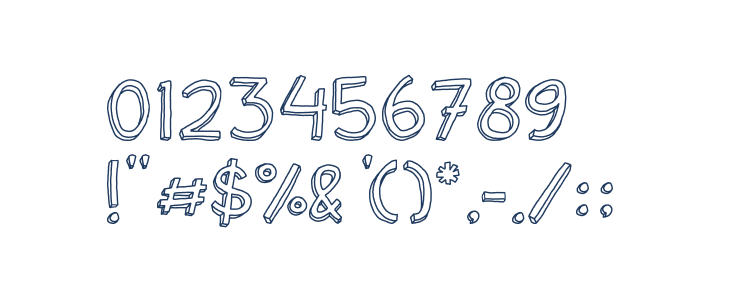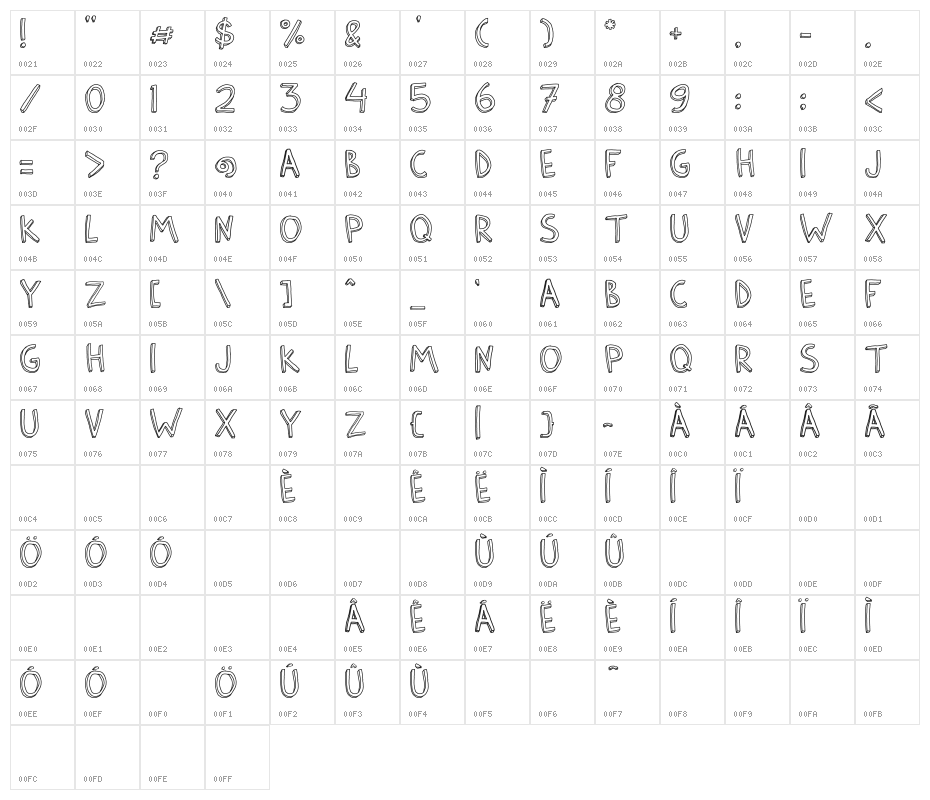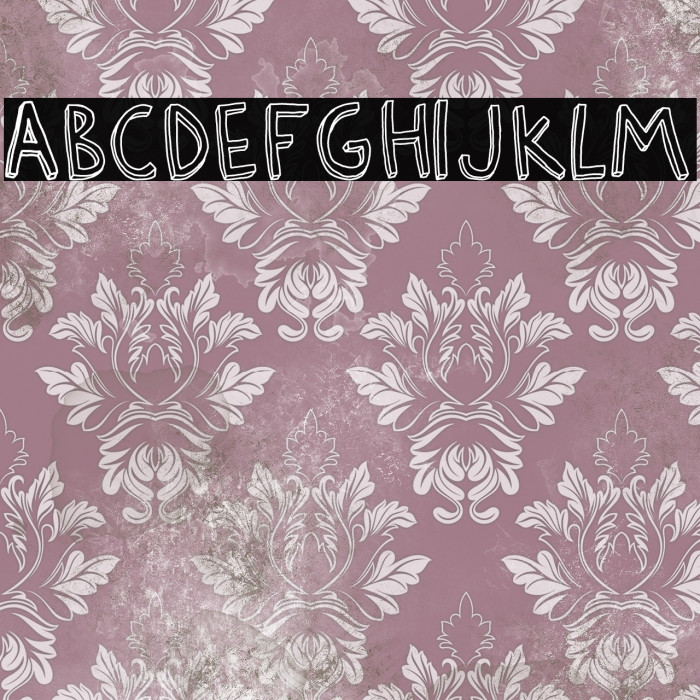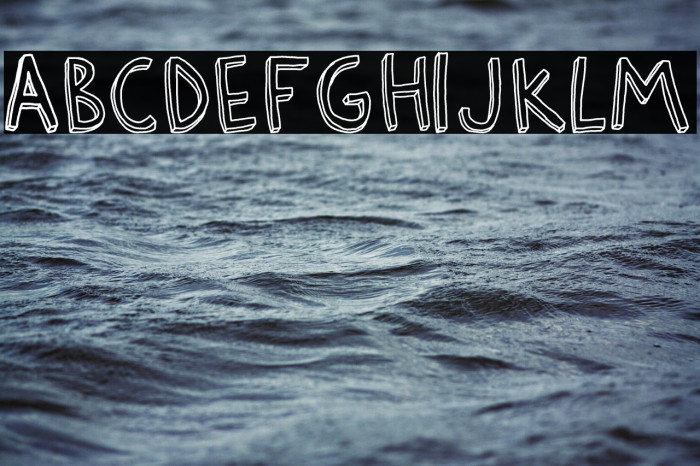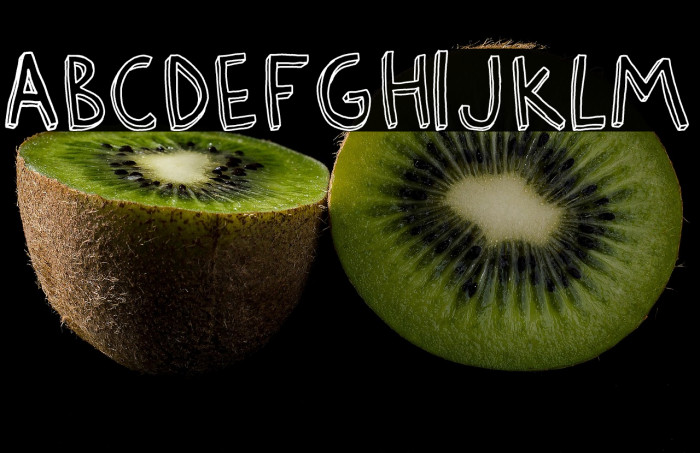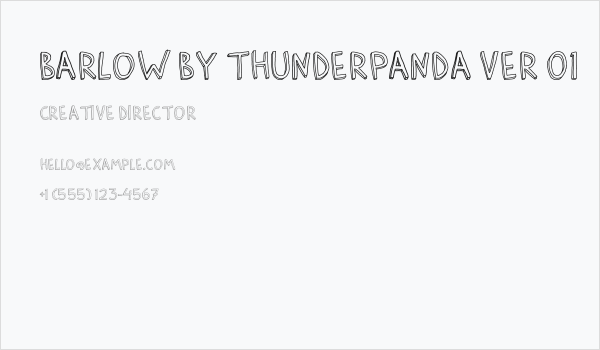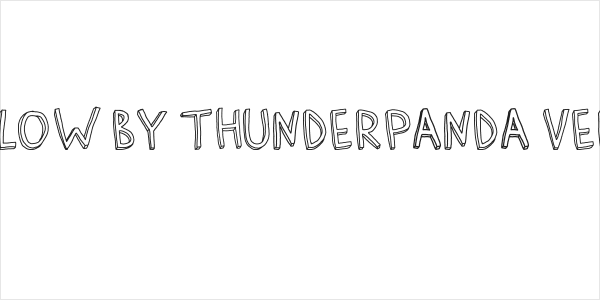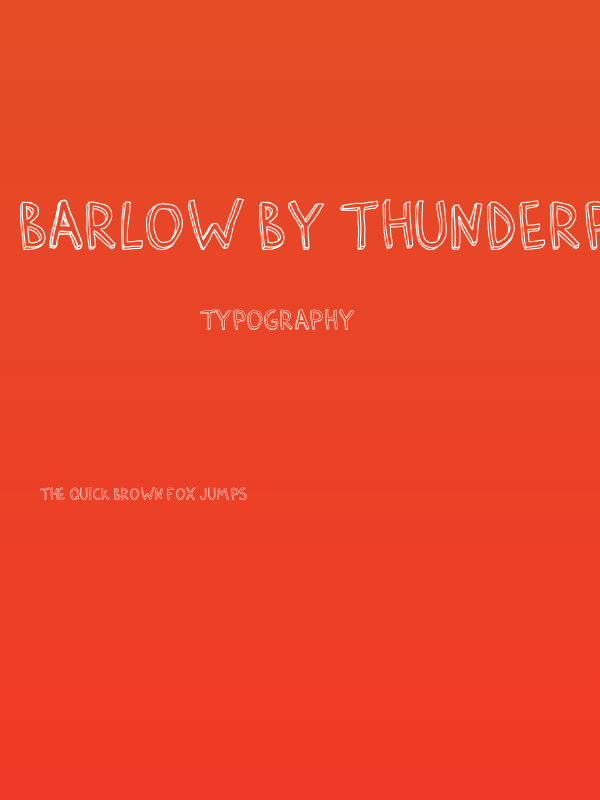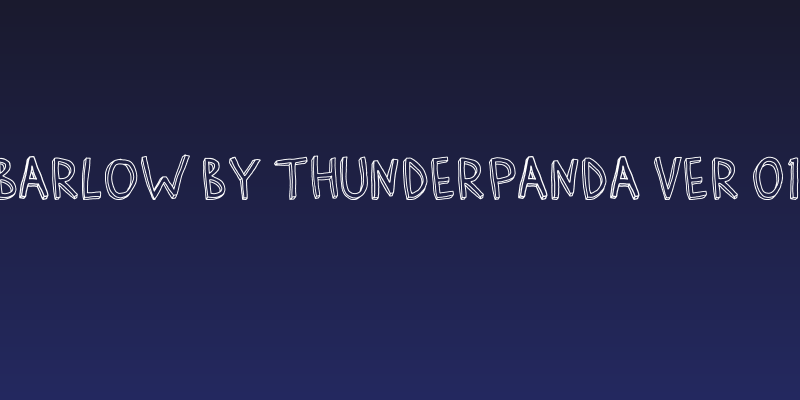
Barlow by Thunderpanda ver 01 Font
Barlow by Thunderpanda ver 01 Description
This font features a playful and hand-drawn style, characterized by its bold, outlined letters that give a three-dimensional effect. The strokes are uneven, adding a casual and informal touch, making it ideal for creative projects. The uppercase and lowercase letters maintain a consistent style, with rounded edges and a slightly irregular baseline, enhancing its whimsical appearance. The numbers and special characters follow the same design principles, ensuring uniformity across all glyphs. This font is perfect for projects that require a fun and approachable aesthetic.
| Proposed Projects | Ideal for children's books, comic strips, playful branding, and creative posters. |